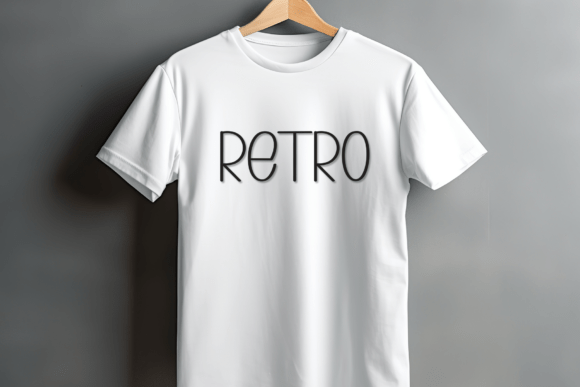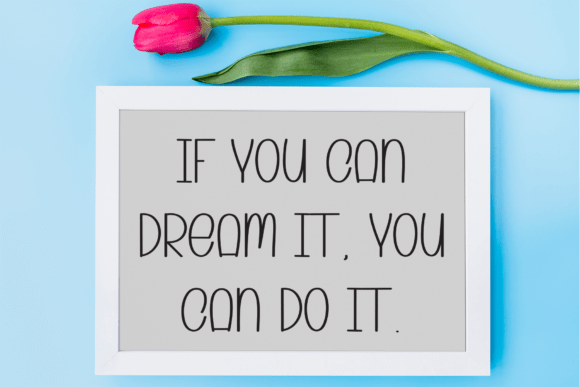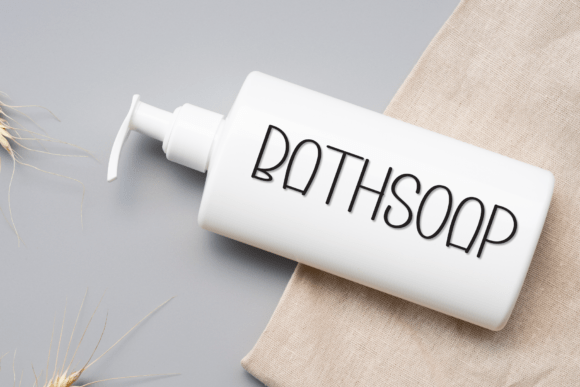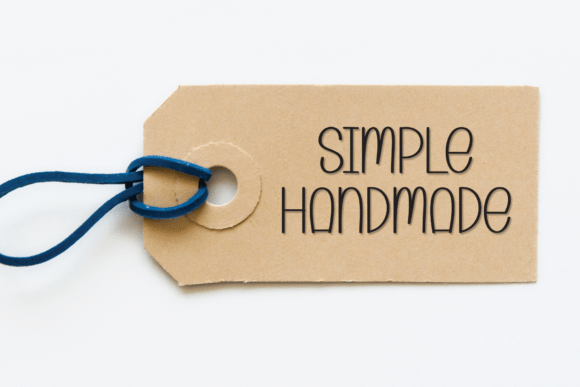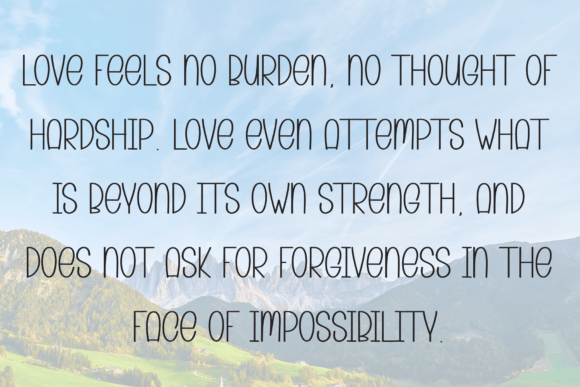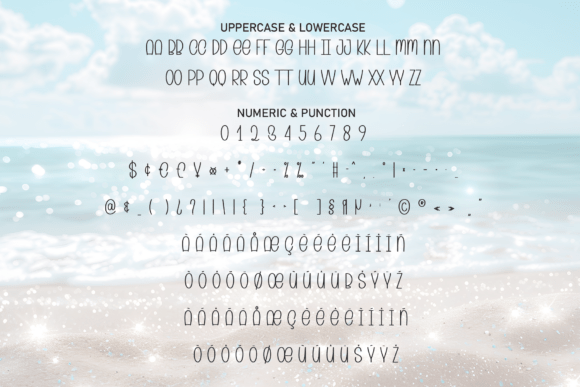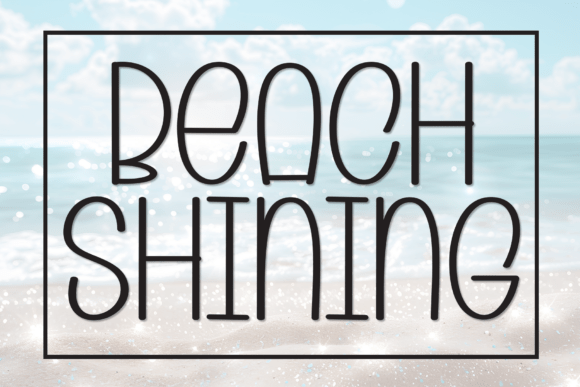
Introducing Beach Shining Font: The Ultimate Display Font for Adding a Touch of Whimsy to Your Designs
Are you tired of using the same old fonts for your designs? Do you want to add a touch of personality and whimsy to your wedding invitations, greeting cards, and other creative projects? Look no further than Beach Shining Font, a charming handwritten display font that’s sure to bring a smile to everyone’s face.
A Font that Oozes Sweetness and Camaraderie
Beach Shining Font is a one-of-a-kind typeface that’s designed to evoke feelings of warmth, friendship, and joy. Its irresistibly cute and playful character makes it perfect for designers and crafters who want to create designs that are both fun and memorable. Whether you’re working on a wedding invitation, a birthday card, or a social media graphic, this font is sure to add a touch of magic to your project.
Beach Shining Font is incredibly versatile, making it suitable for a wide range of design projects. Here are just a few ideas to get you started:
- Wedding invitations and wedding stationery
- Greeting cards for birthdays, anniversaries, and holidays
What Sets Beach Shining Font Apart
So, what makes Beach Shining Font so special? Here are just a few features that set it apart from other display fonts:
- Handwritten charm: Beach Shining Font has a beautifully handwritten feel that’s both personal and approachable.
- Playful character: This font has a playful, carefree spirit that’s sure to add a touch of whimsy to your designs.
- Captivating and light-hearted: Beach Shining Font is designed to be attention-grabbing and fun, making it perfect for designs that need to stand out.
Tips for Using Beach Shining Font
Here are a few tips for getting the most out of Beach Shining Font:
- Use it sparingly: While Beach Shining Font is perfect for headlines and titles, it’s best to use it sparingly to avoid overwhelming your design.
- Pair it with a neutral font: Pair Beach Shining Font with a neutral font, such as a sans-serif or serif font, to create visual interest and contrast.
- Experiment with colors: Beach Shining Font looks great in a variety of colors, so don’t be afraid to experiment and find the perfect hue for your design.
Beach Shining Font is a truly unique and special display font that’s sure to add a touch of whimsy and fun to your designs. With its handwritten charm, playful character, and captivating spirit, this font is perfect for designers and crafters who want to create unforgettable designs that leave a lasting impression. So why wait? Download Beach Shining Font today and start creating designs that shine!